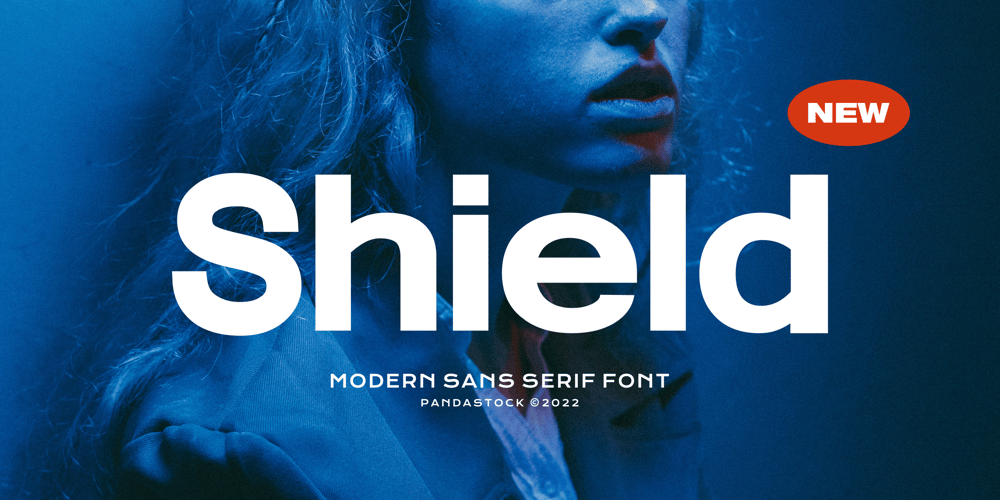
Shield Font Family was designed by Aulia Savira Putri and published by Pandastock. Shield contains 1 styles and family package options. Shield is elegant sans serif fonts with visual elegance, smooth curves and beautiful ligatures clear, making your work look true and attractive.A very versatile font that works in both large and small sizes. This font is suitable for a wide variety of projects such as invitations, logo, branding, magazine, photography, card, product packaging, mugs, quotes, poster, label, signature and more.Font which is perfect for all business sectors including personal projects, studio, corporate, creative agency, industrial, company, etc.